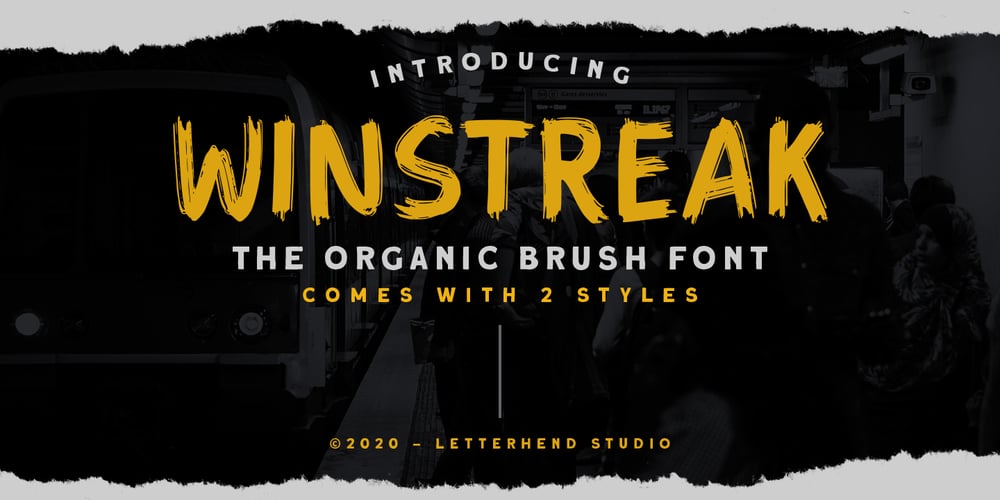
Winstreak Font Family was designed by Hendry Juanda and published by Letterhend. Winstreak contains 2 styles and family package options. Winstreak is a unique brush typeface with bold and strong feel. This font is perfectly made for logos, and the other various formal forms such as invitations, labels, magazines, books, greeting / wedding cards, packaging, fashion, make up, stationery, novels, labels and more.Features : Uppercase & Lowercase Numbers and Punctuation Ligatures and Alternates Multilingual Support PUA encoded We highly recommend using a program that supports OpenType features and Glyphs panels like many of Adobe apps and Corel Draw, so you can see and access all Glyph variations.Email us to letterhend@gmail.com if you need something! Happy Designing!